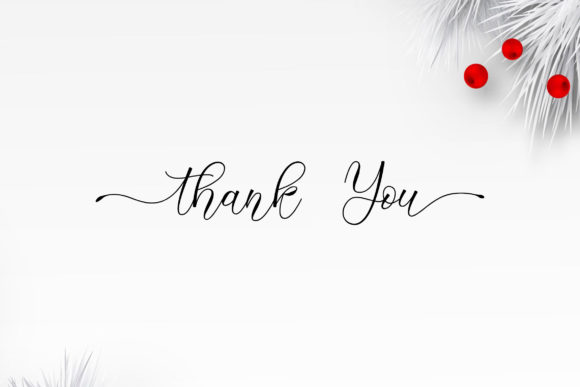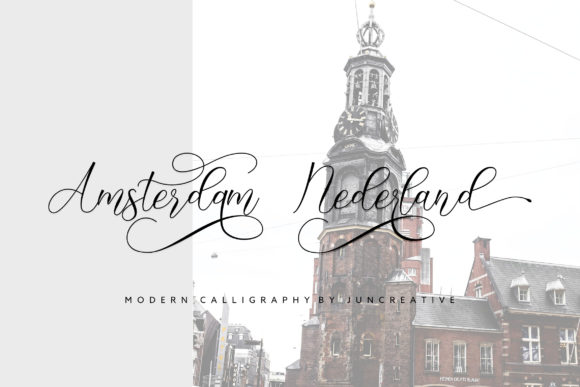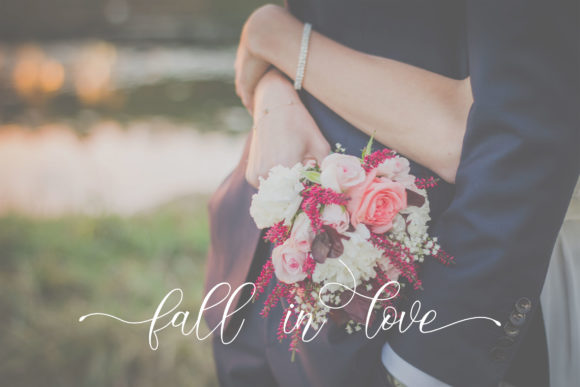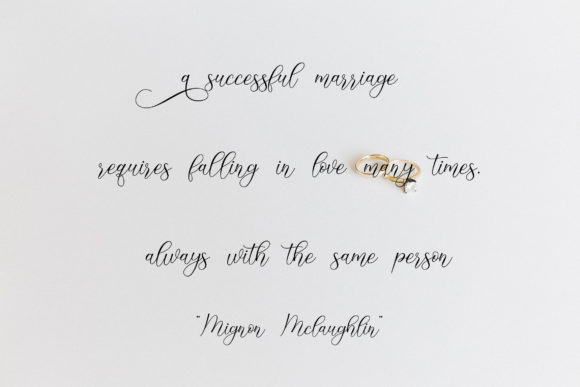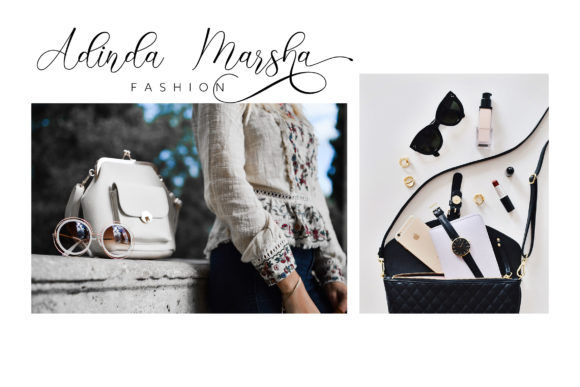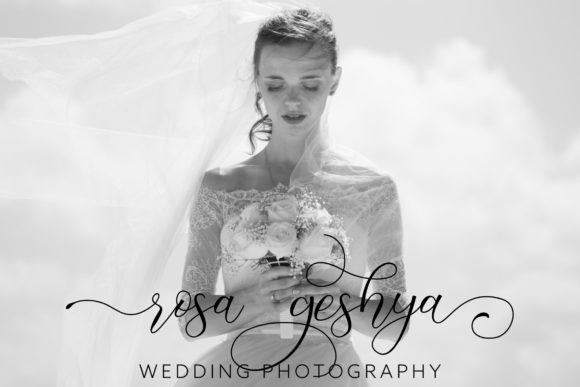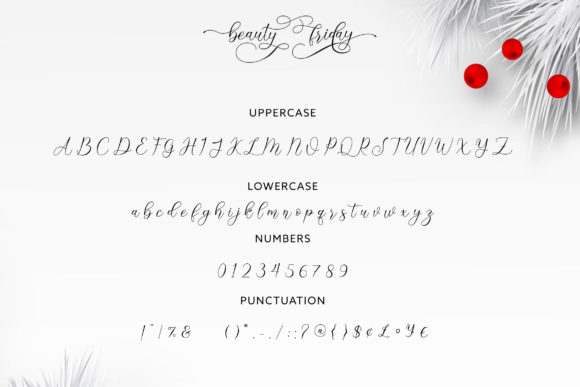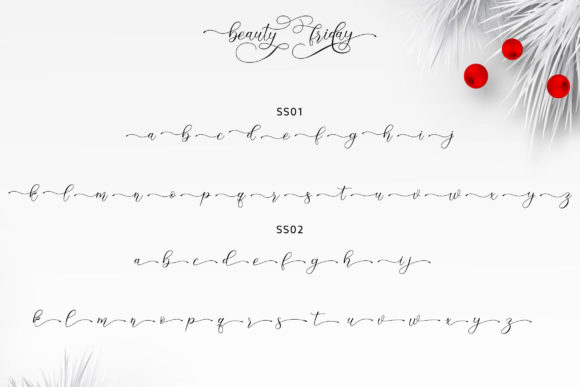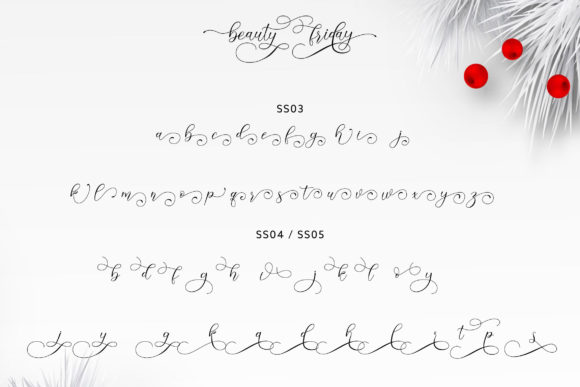
Beauty Friday Font
About Beauty Friday Font
Beauty Friday is a one-of-a-kind script and includes a full set of lovely uppercase and lowercase letters, multilingual symbols, numerals, punctuation and ending lowercase swashes.